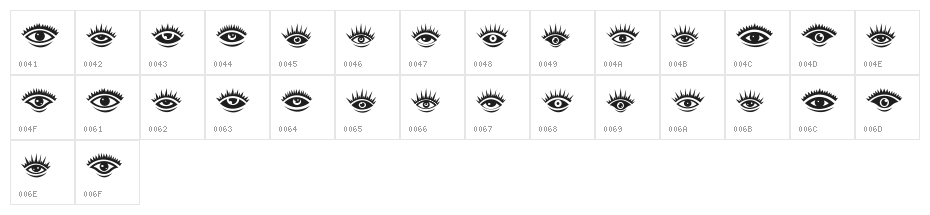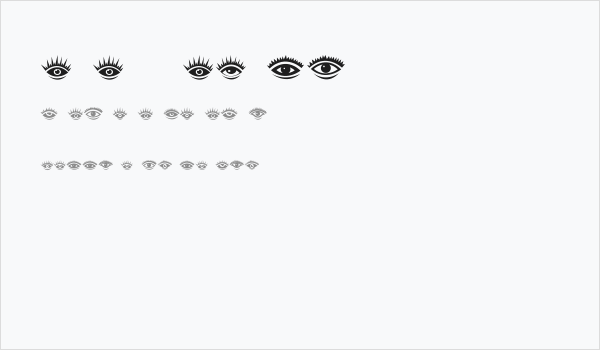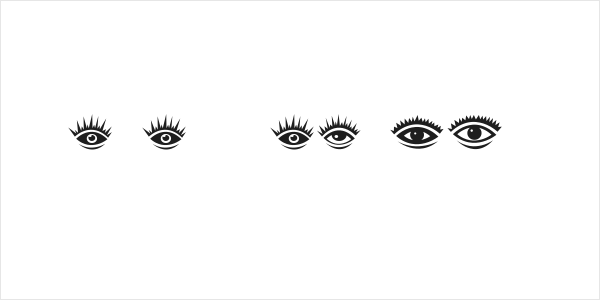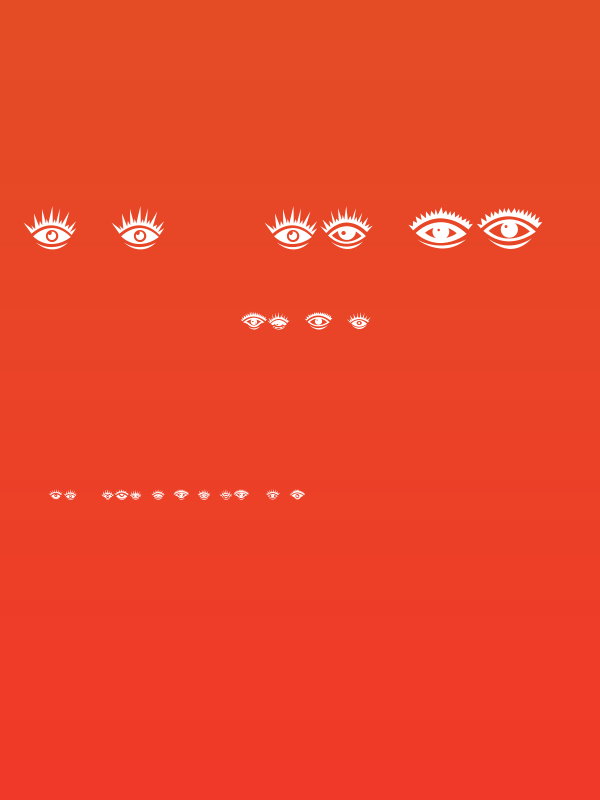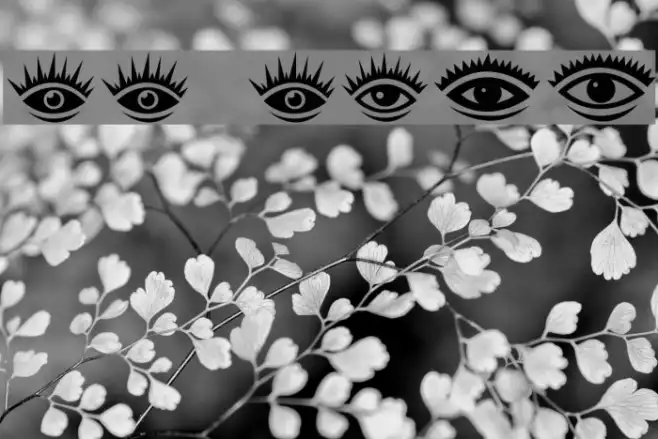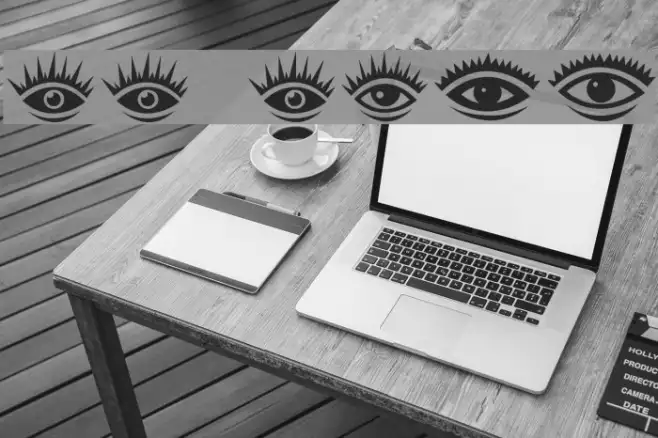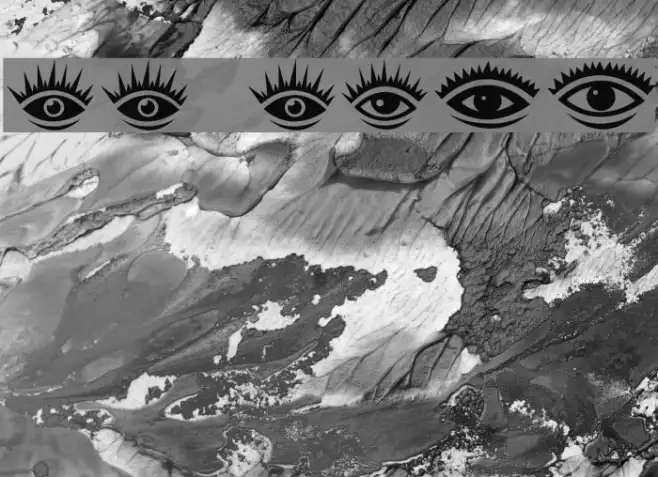
Eyez Regular Font
Eyez Regular Description
A decorative font where each character is represented by a stylized eye illustration, varying slightly in eyelash shape and size for each glyph. The design is bold, high-contrast, and visually striking, with thick lines and playful, graphic details.
| Overall Style | Decorative, Playful, Graphic |
| Use Case | Logos, Headlines, Posters, Artistic projects |
| Proposed Projects | Posters, album covers, branding for creative industries, art installations, event promotions, editorial design. |